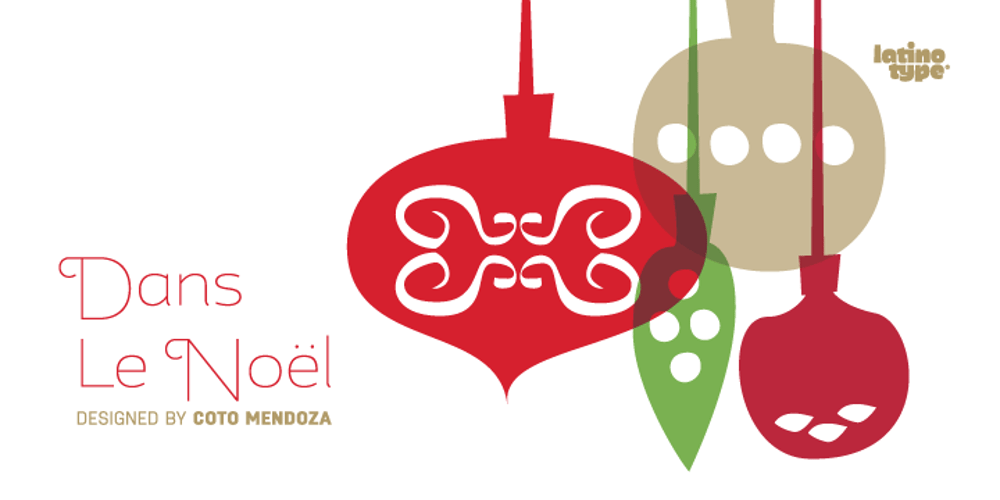
Dans Le Noël Font Family was designed by Guisela Mendoza and published by Latinotype. Dans Le Noël contains 1 styles and family package options. Dans Le Noël is a Christmas dingbat. Perfect for use as ornament greeting cards, patterns, posters, websites and visual compositions that need Christmas show in a language full of personality, inspired by vintage illustrations. Dans Le Noël is part of the serie Dans, with Dans Le Cuisine and Dans Le Jardin. You can combine them as you like. Enjoy!